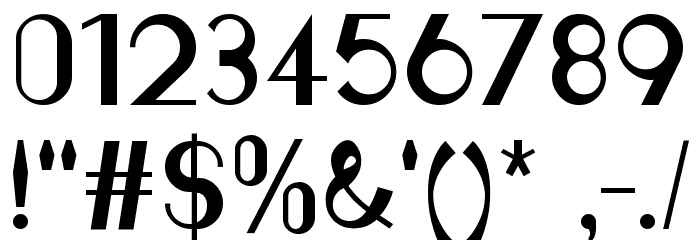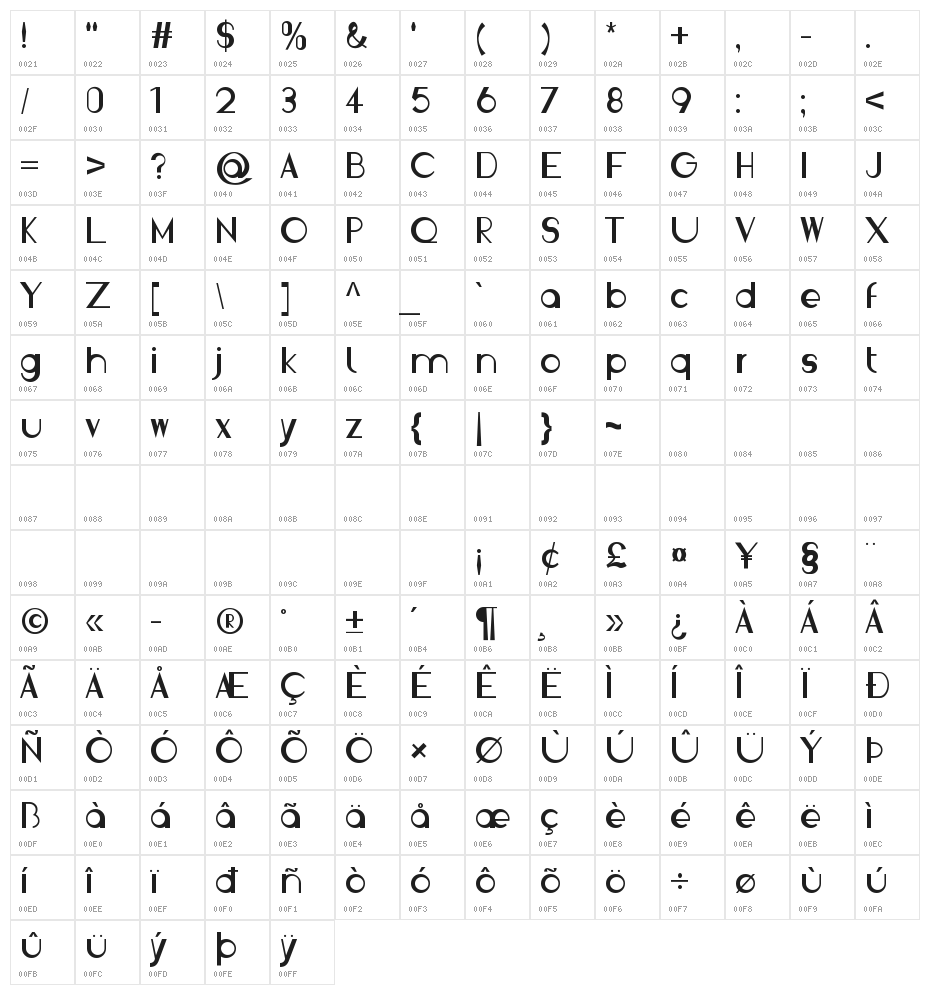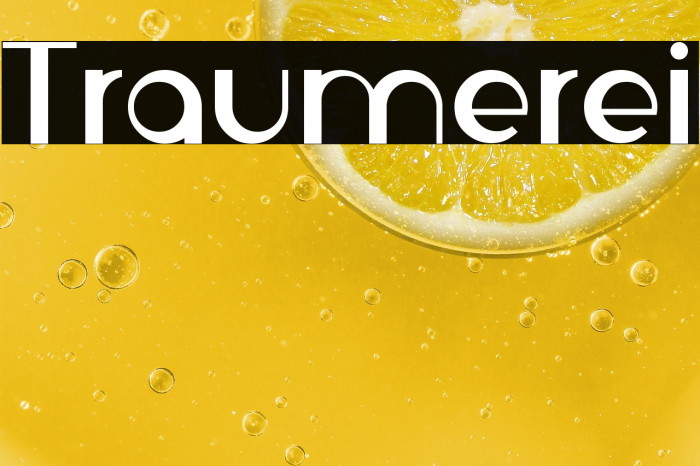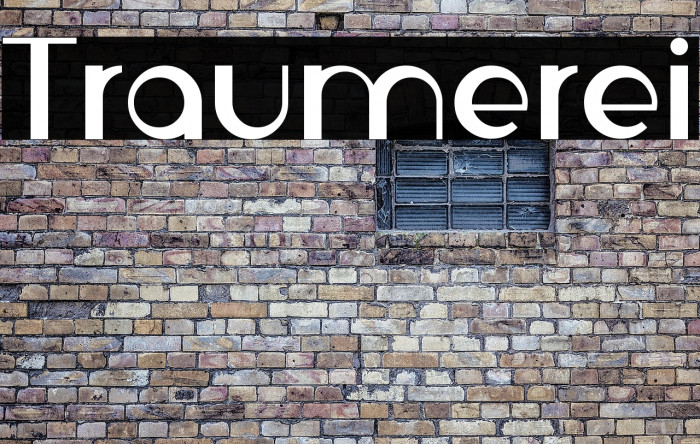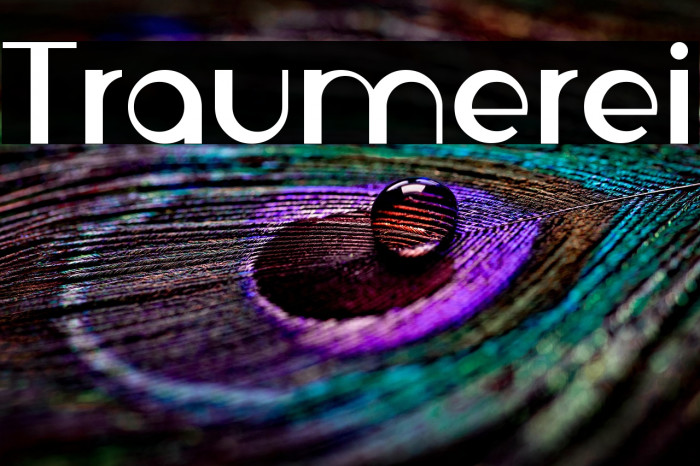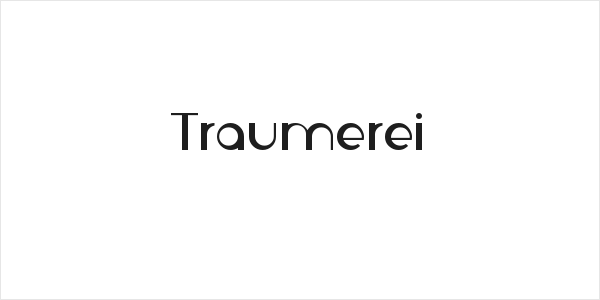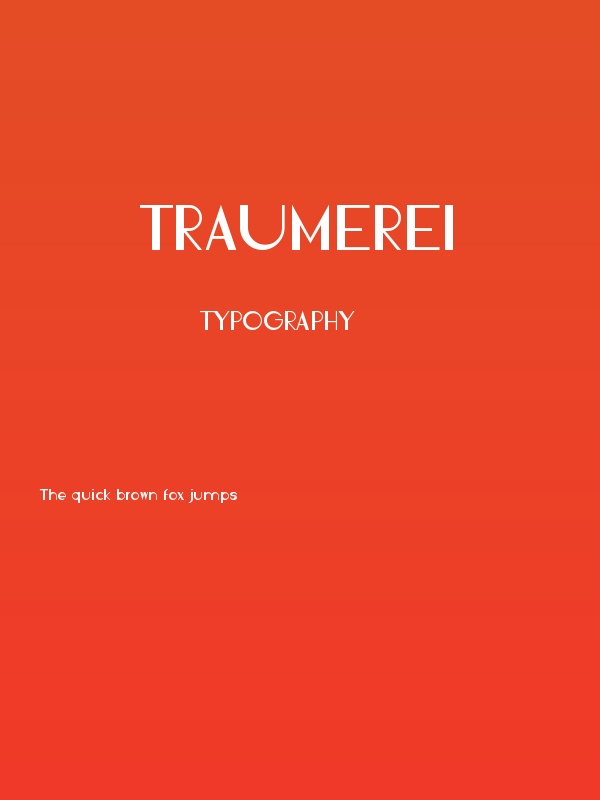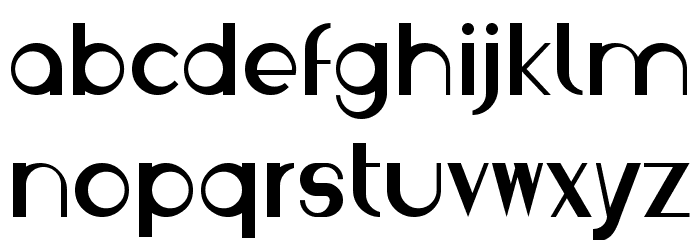
Traumerei Font
Traumerei Description
This font features a modern and sleek design with clean lines and a geometric structure. The uppercase letters are bold and assertive, while the lowercase letters maintain a consistent style with slightly rounded edges that add a touch of softness. The numerals are clear and legible, designed to complement the overall aesthetic. Special characters are included, maintaining the font's cohesive look. The font's balance between boldness and simplicity makes it versatile for various design needs.
| Proposed Projects | Ideal for branding, advertising, and editorial design projects where a contemporary and professional look is desired. |